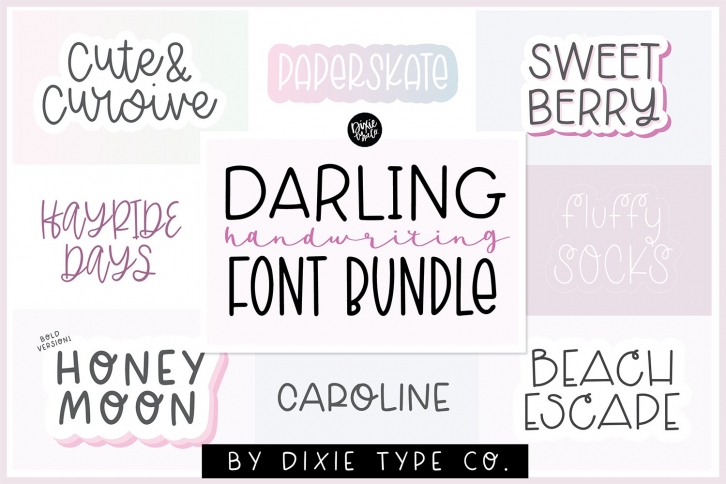
HANDWRITING BUNDLE is a great font that was designed by Dixie Type Co. Imagine the amount of combinations you can create using this font! The archive is 10.46 MB and it was released on May 5, 2021. HANDWRITING BUNDLE looks beautiful on wedding invitations, greeting cards, logos, posters, labels, t-shirt designs, logos, business cards and is perfect for use in ink or watercolor works, fashion, magazines, packaging and food menus, children's books and more!